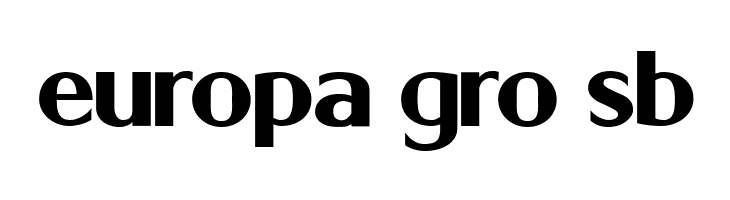
A modern, geometric sans-serif font with a clean and professional look.
A bold, modern sans-serif font with clean lines and geometric influence.
A bold, modern font with clean lines and rounded edges.